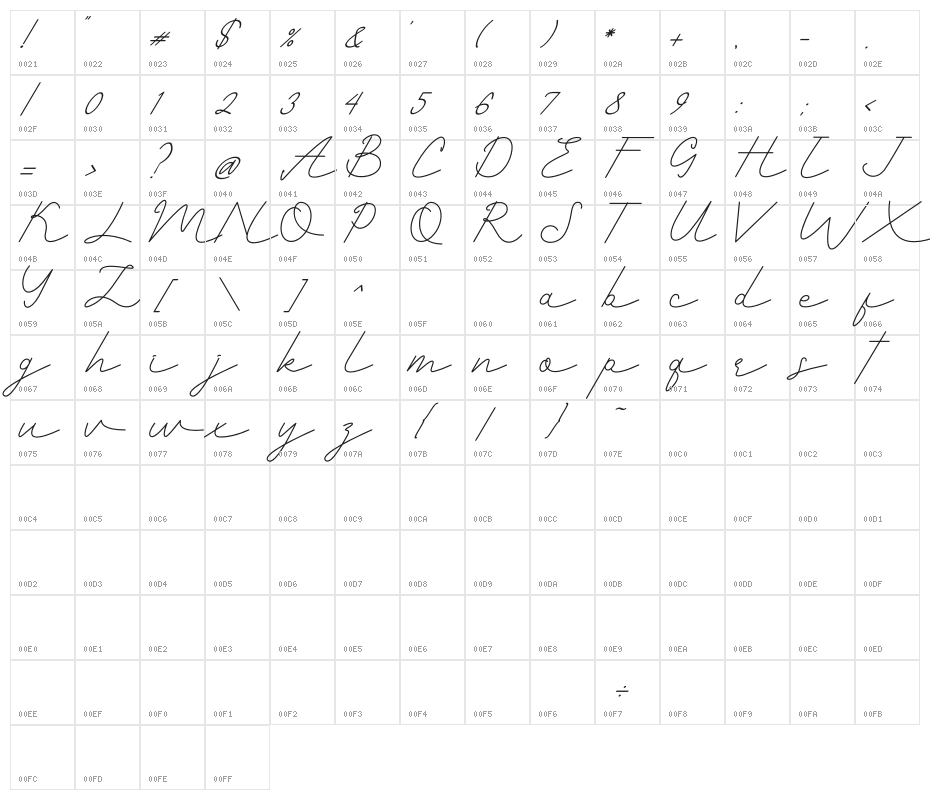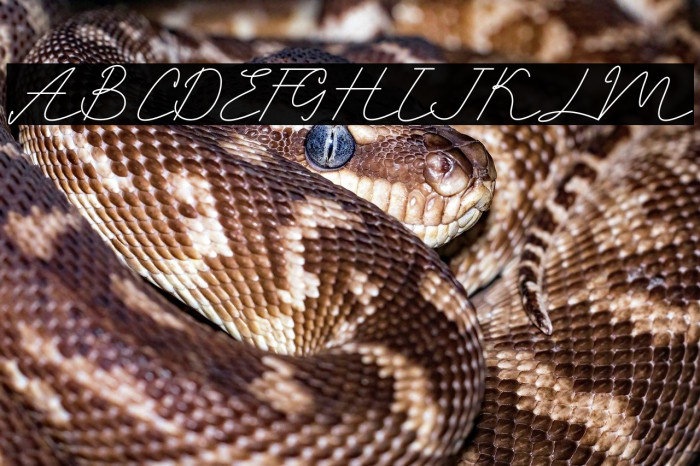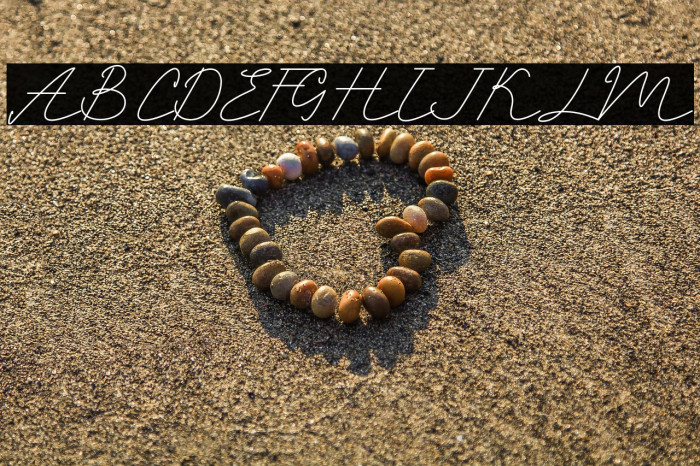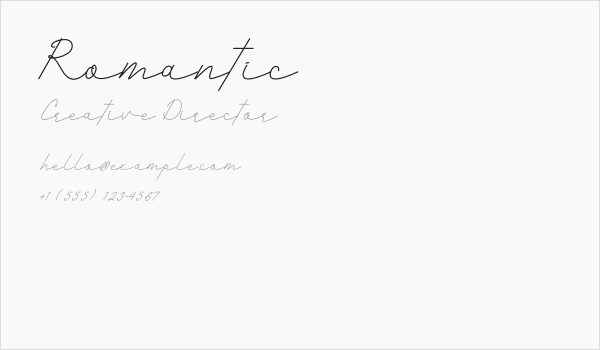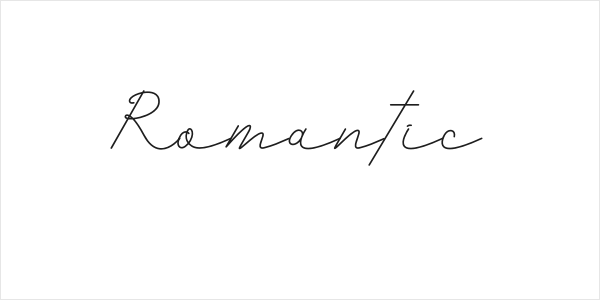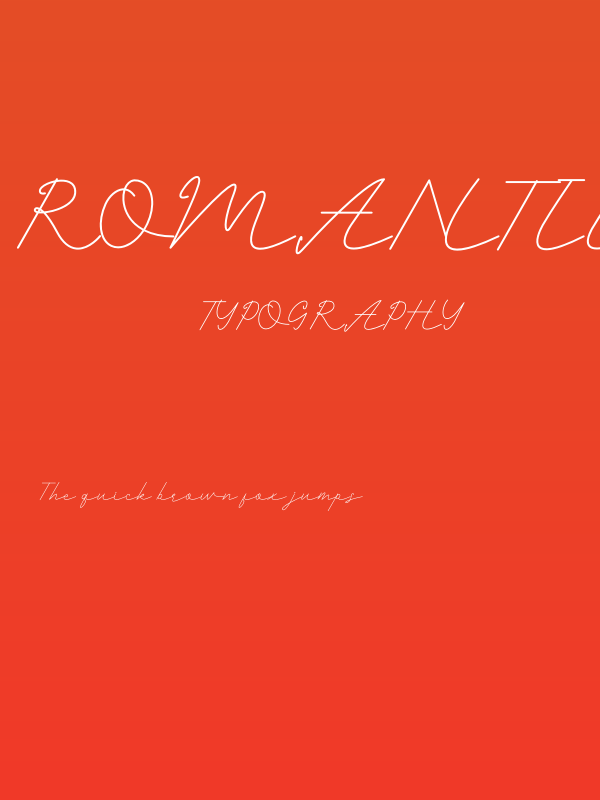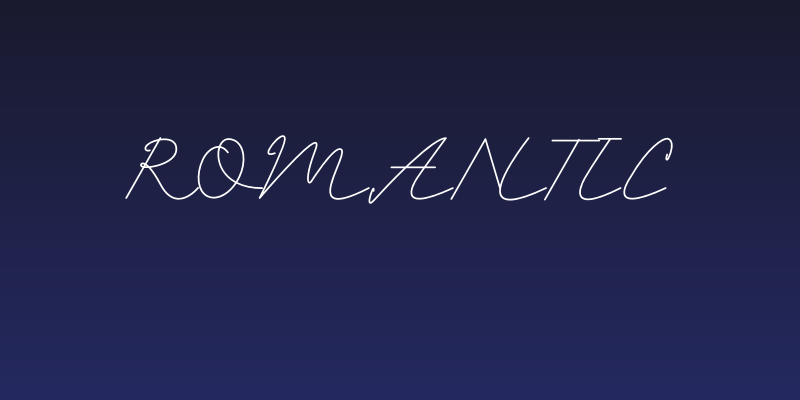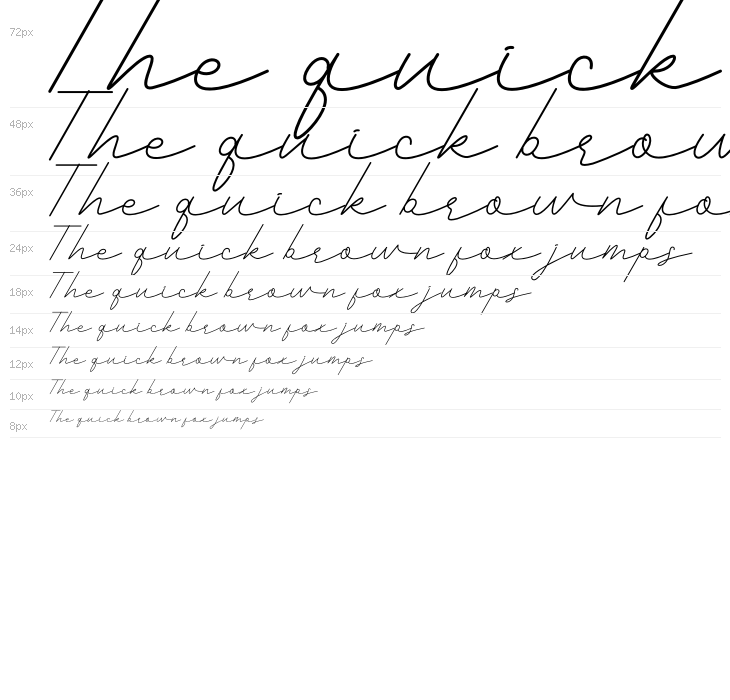
Romantic Font
Romantic Description
This elegant script font features a flowing, cursive style that exudes sophistication and grace. The letters are interconnected with smooth, sweeping strokes, creating a sense of fluidity and movement. The uppercase characters are slightly more elaborate, with decorative flourishes that enhance their visual appeal. The lowercase letters maintain a consistent rhythm, contributing to the font's overall harmony. Numbers and special characters are designed with the same attention to detail, ensuring a cohesive look across all elements. This font is perfect for projects that require a touch of elegance and refinement.
Overall StyleElegant
Use CaseLogos, Invitations, Personal stationery
Proposed ProjectsIdeal for wedding invitations, elegant branding, personal stationery, and romantic-themed designs.